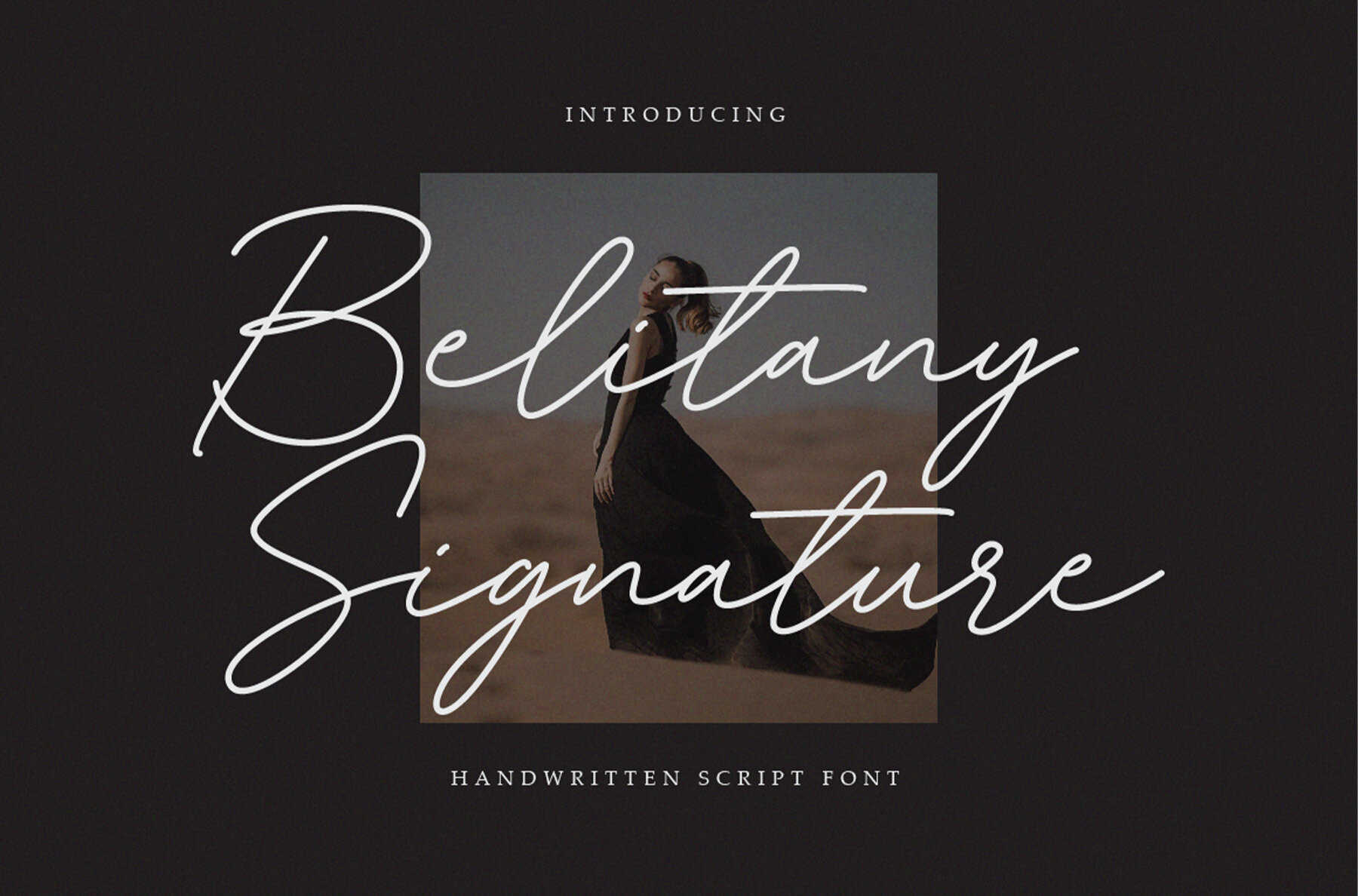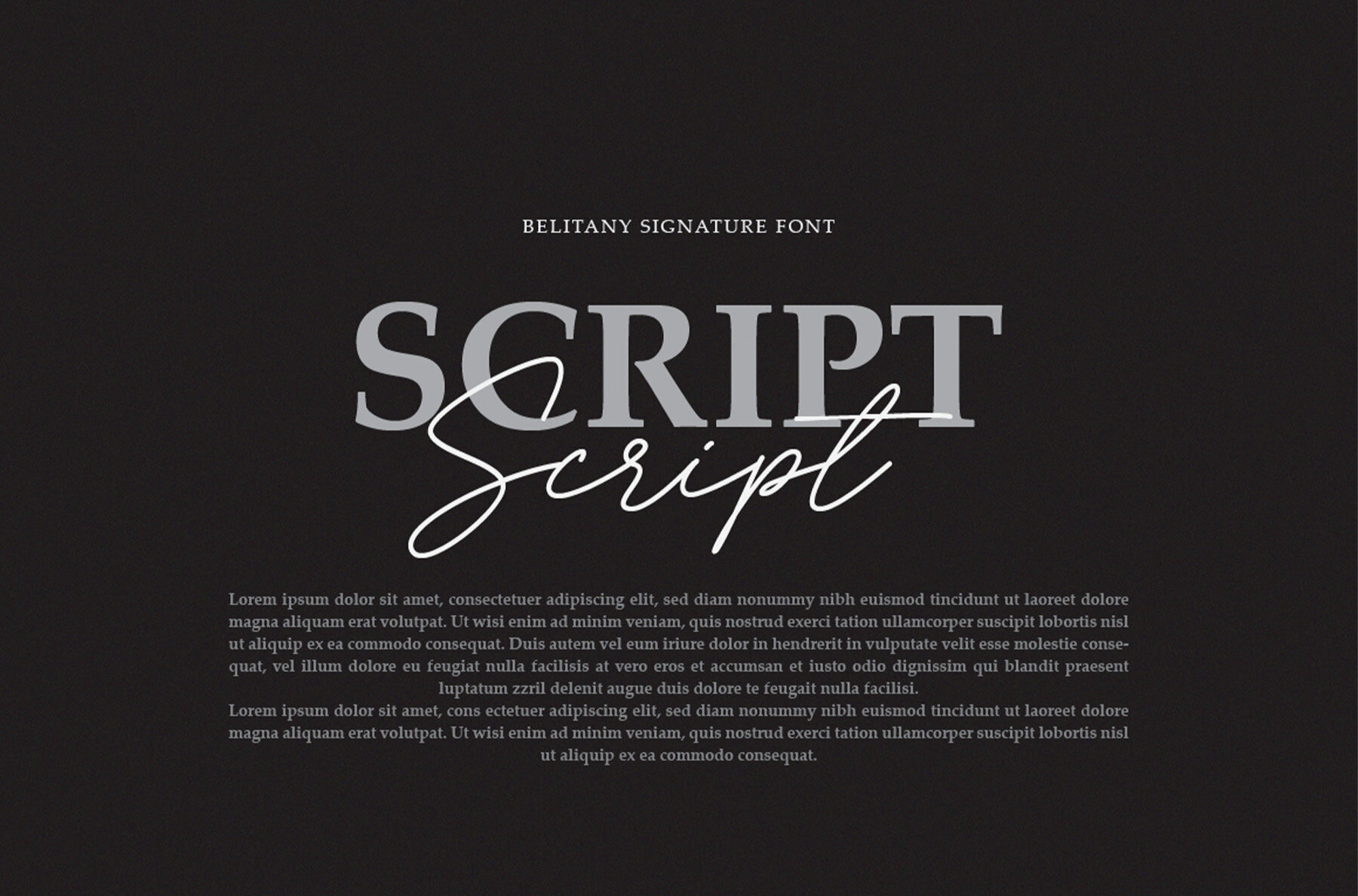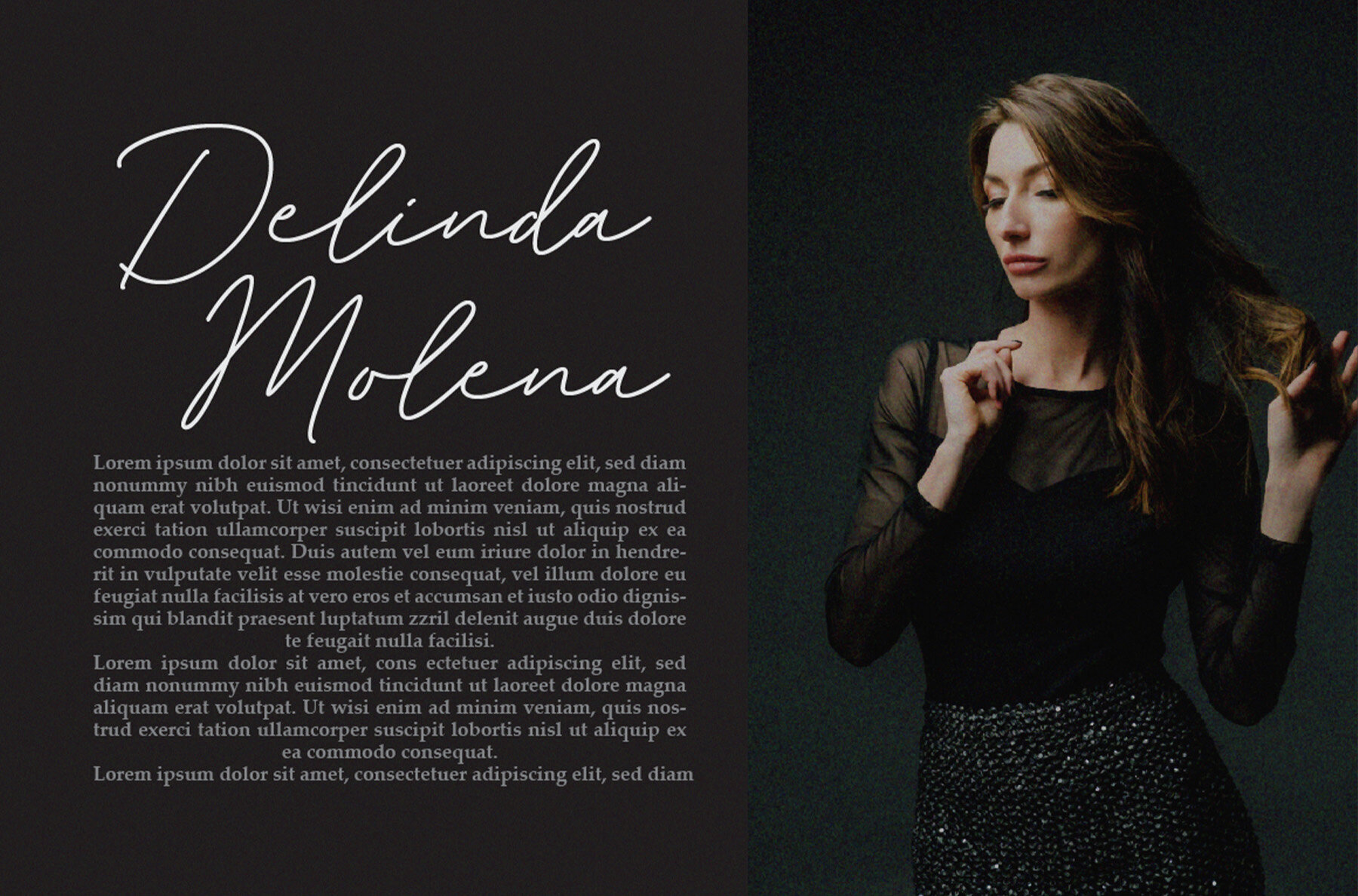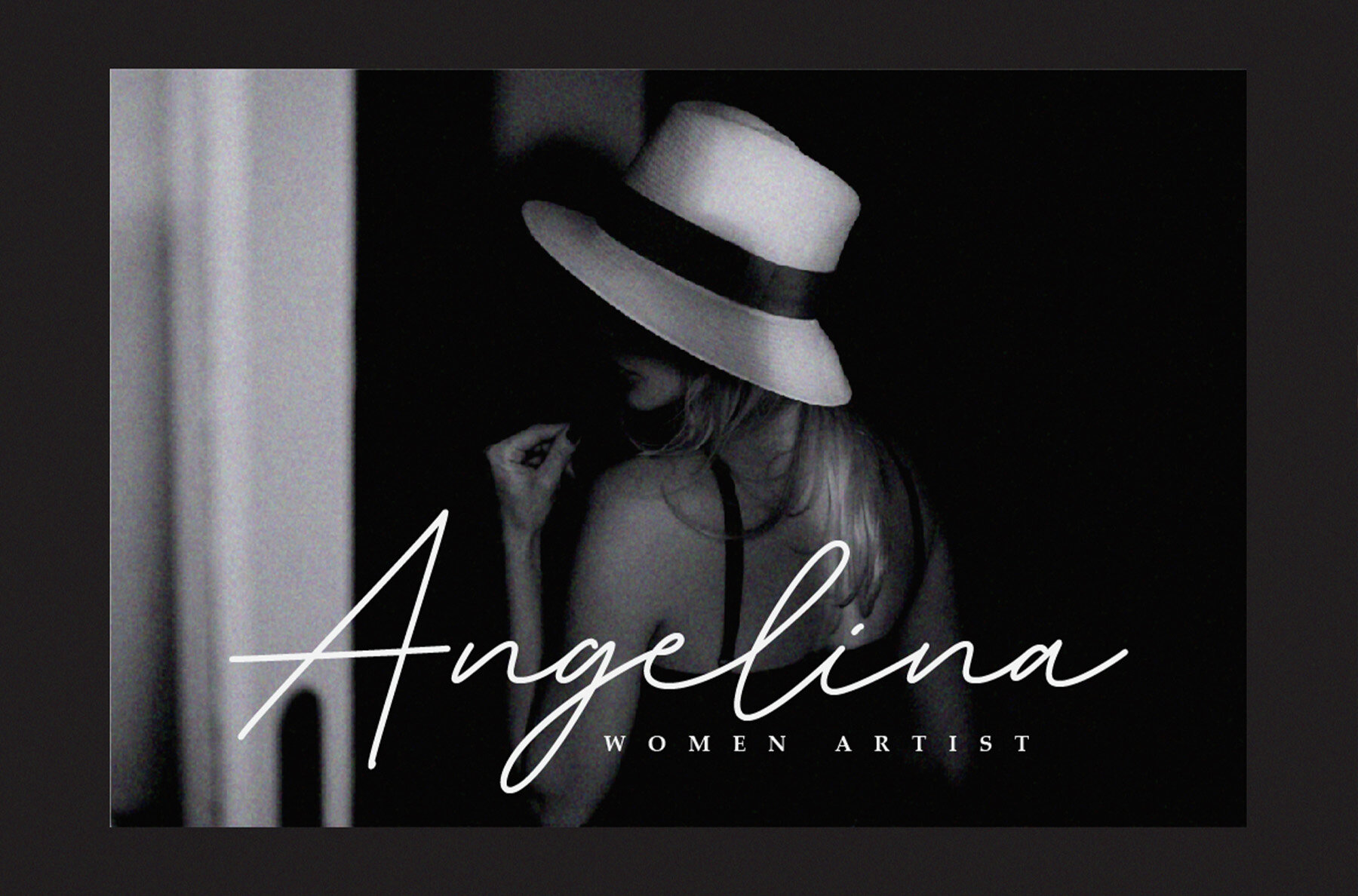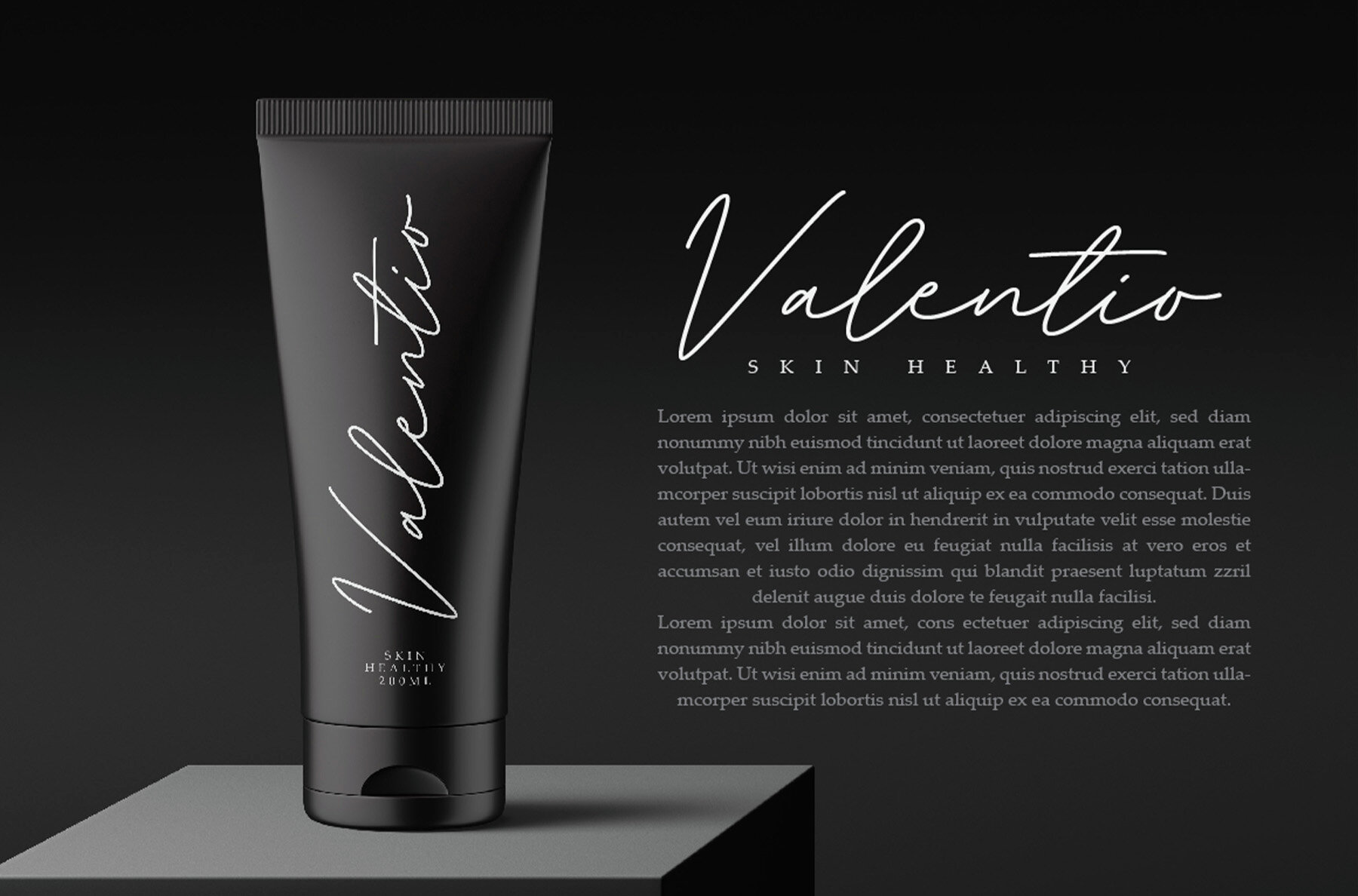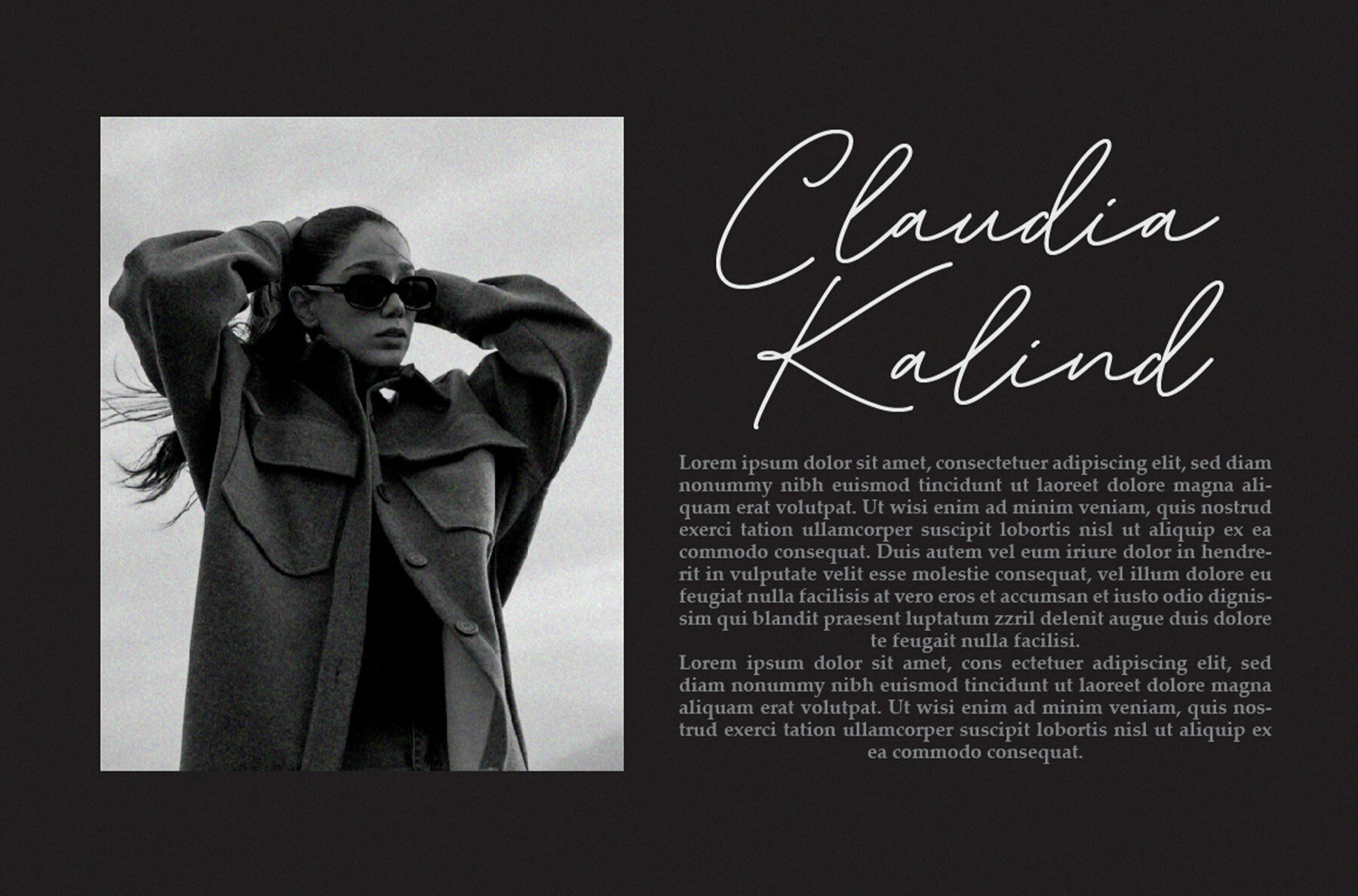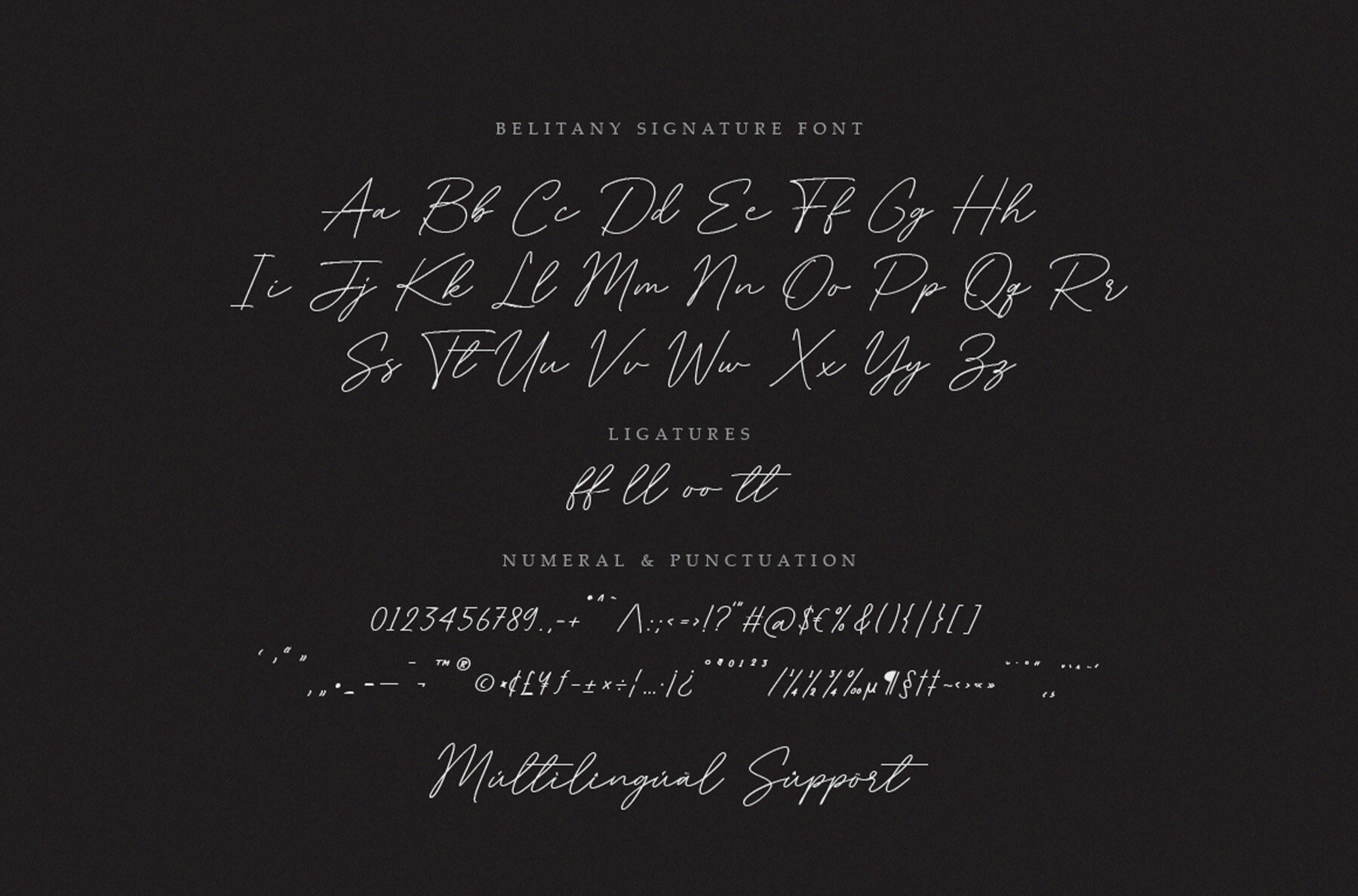
Belitany Signature Font
Belitany Signature
Belitany Signature is a sleek handwritten font with a refined signature style. Its elegant strokes deliver a sophisticated, personal touch that stands out across design projects. The distinctive lines bring a sense of exclusivity to logos, invitations, marketing materials, and any setting where a graceful, bespoke look is essential. This font offers precision and character, making each project both polished and unique.Belitany Signature Handwritten Font